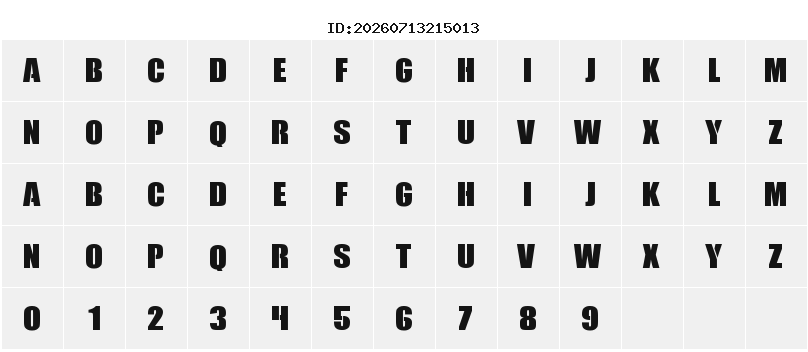
• Font Name: Call Of Ops Duty
• Full Font Name: Call Of Ops Duty
About Call Of Ops Duty.otf
Call Of Ops Duty.otf is a modern, elegant sans-serif font designed for ultimate readability and visual harmony. Perfect for branding, headlines, web design, and print materials.